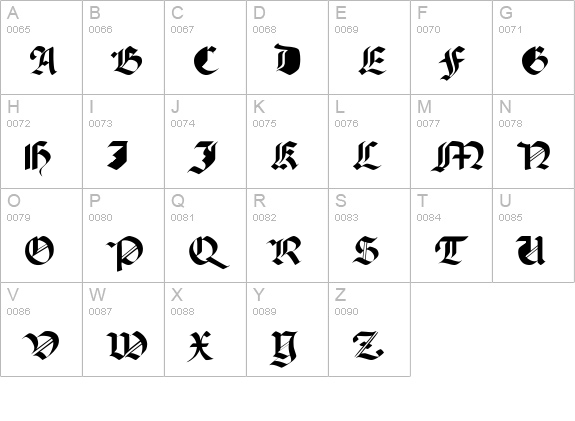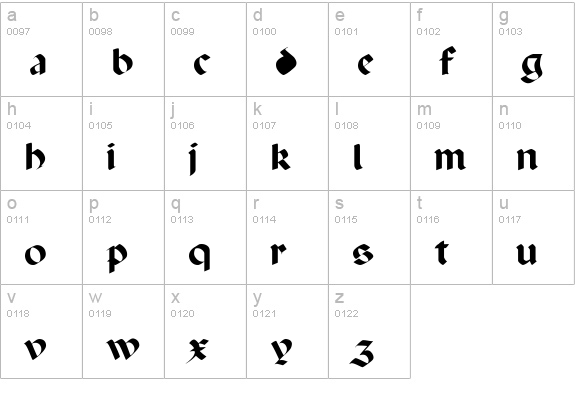
Paganini Font Details
Paganini font is a breathtakingly elegant typeface that effortlessly captures the essence of classical beauty. With its delicate strokes and graceful curves, this font is a true masterpiece, perfect for adding a touch of sophistication to any design project. Designed with meticulous attention to detail, Paganini font exudes a sense of timeless elegance that is sure to captivate your audience. Its refined and harmonious proportions make it ideal for a wide range of applications, from luxury branding to editorial design and everything in between. One of the most remarkable aspects of Paganini font is that it is available for free. Yes, you read that right – this extraordinary typeface can be freely downloaded at FontsMarket.com. This means that you can elevate your creative projects without breaking the bank, making Paganini font an invaluable asset for designers, artists, and enthusiasts alike. Whether you're designing a logo, crafting a wedding invitation, or creating a magazine layout, Paganini font will effortlessly elevate your work to new heights. Its versatility and timeless appeal make it a truly remarkable addition to any typographic collection. So why wait? Discover the beauty and versatility of Paganini font today. Download it for free at FontsMarket.com and unlock a world of creative possibilities. With Paganini font, you can create designs that not only impress but also stand the test of time.